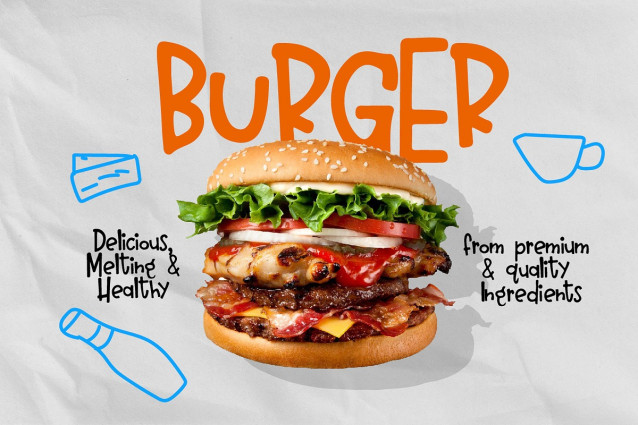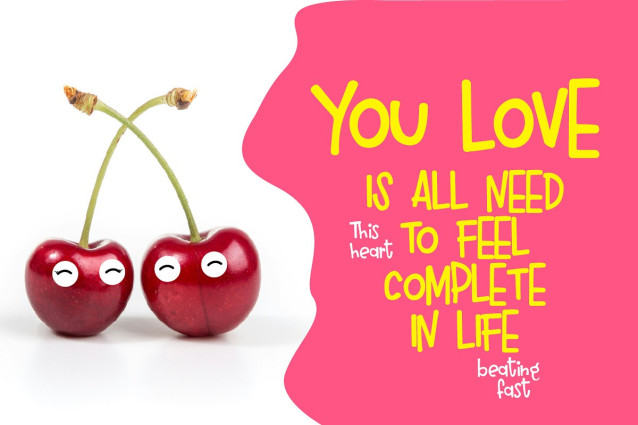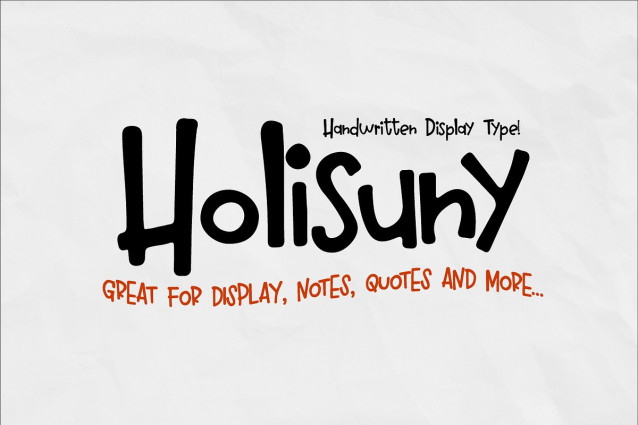
Holisuny Font
Holisuny font has a natural and organic feel with a handwritten look. The strokes appear to be created by fluid and skillful hand movements, giving the font an artistic and handmade feel. Medium to large font sizes will clearly show the stroke details. This font is perfect for designs that require a personal and organic touch.
Holisuny is supported with additional characters with alternate shapes and strokes that will help you achieve a beautiful style with your own creations.